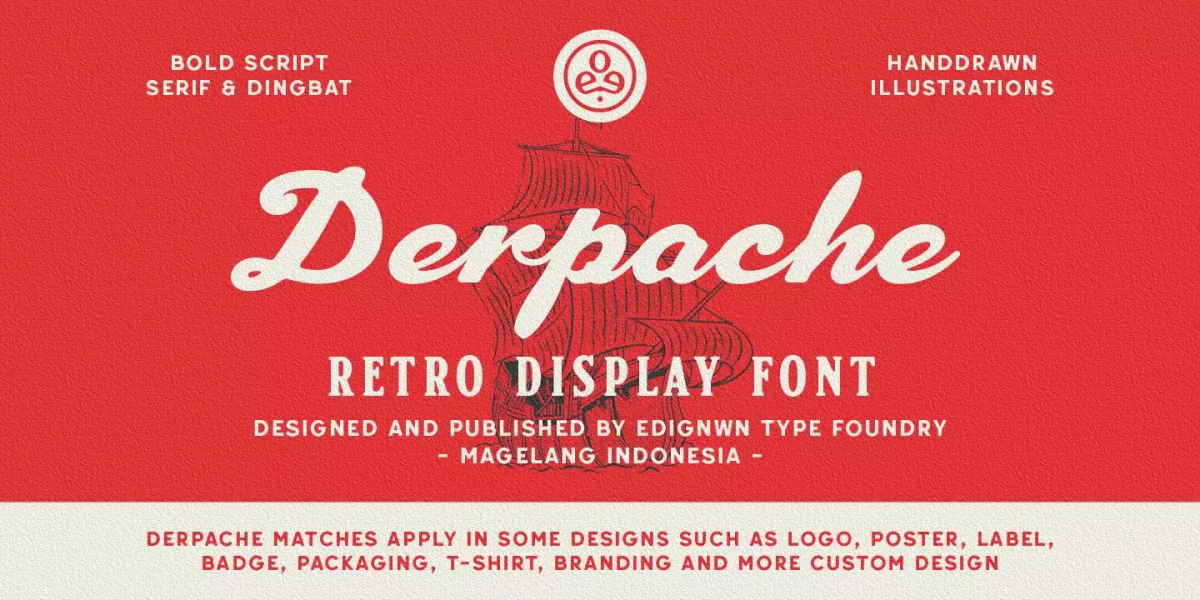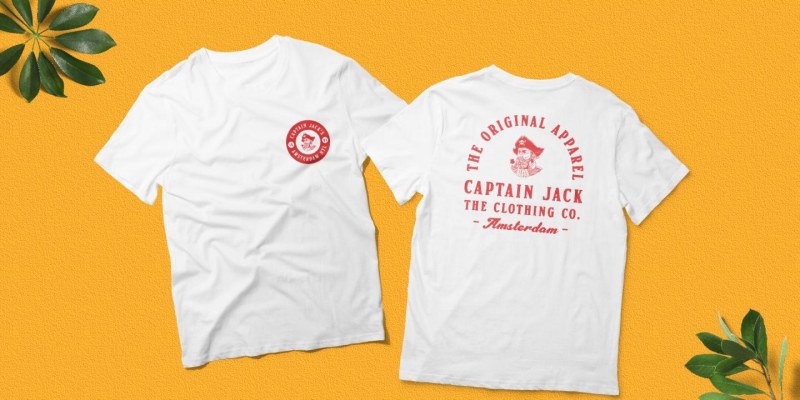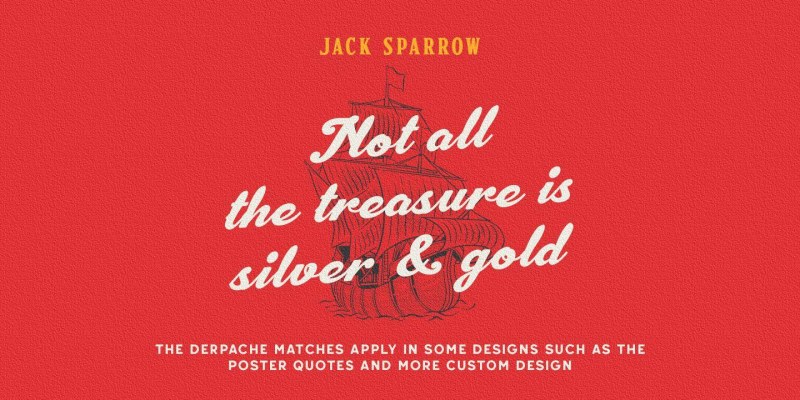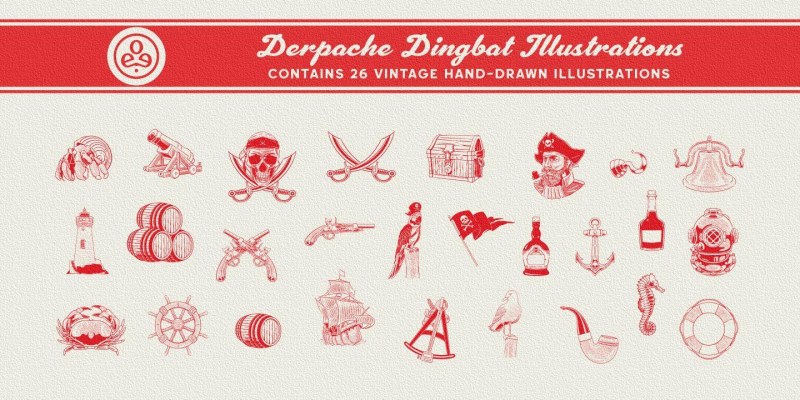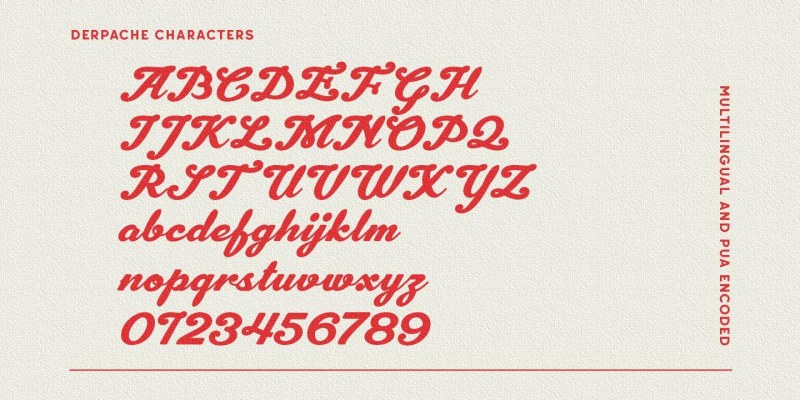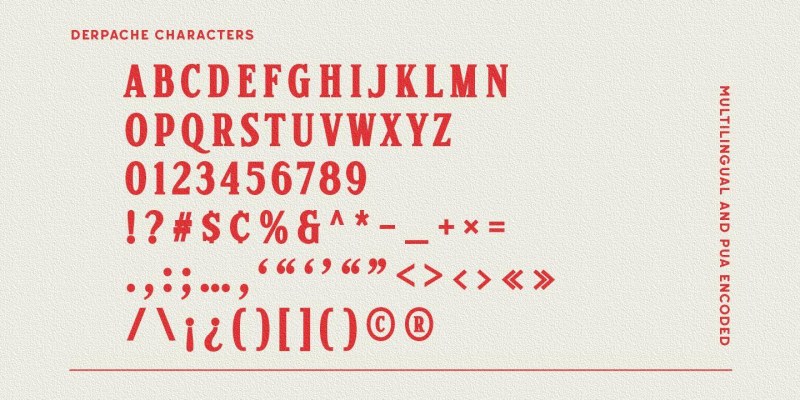
Derpache Font
The Derpache Font is inspired by authentic typefaces in old labels. This font collections contain script and serif font. Every font comes with 4 style typefaces (regular, rounded, rough and stamp). Derpache gives more extras nautical and pirate in one pack illustrations. This script font includes some alternates. The Derpache matches apply in some designs such as the logo, poster, label, badge, packaging, t-shirt, branding, quotes and more custom design.
Derpache Font is a Font Family font that brings a professional and versatile look to your projects. The Derpache Font is inspired by authentic typefaces in old labels.